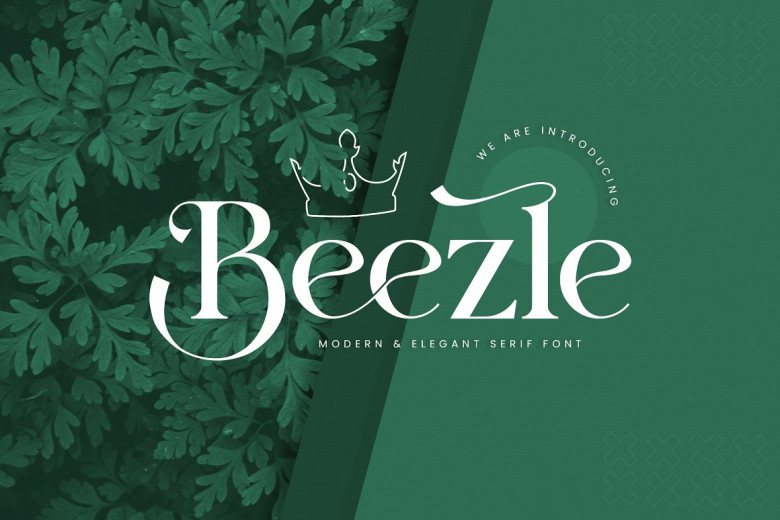
Beezle Font
Beezle Serif is a beautifully balanced elegant, smooth, and fashionable serif font. With its gorgeous personality, Beezle serif makes an excellent choice for invitation cards, company logos and film titles, books, business card titles brands and many other designs.
Beezle serif exudes sophistication due to its elegant alternations and ligature systems and makes an excellent partner in any type of project.
Beezle Serif Font